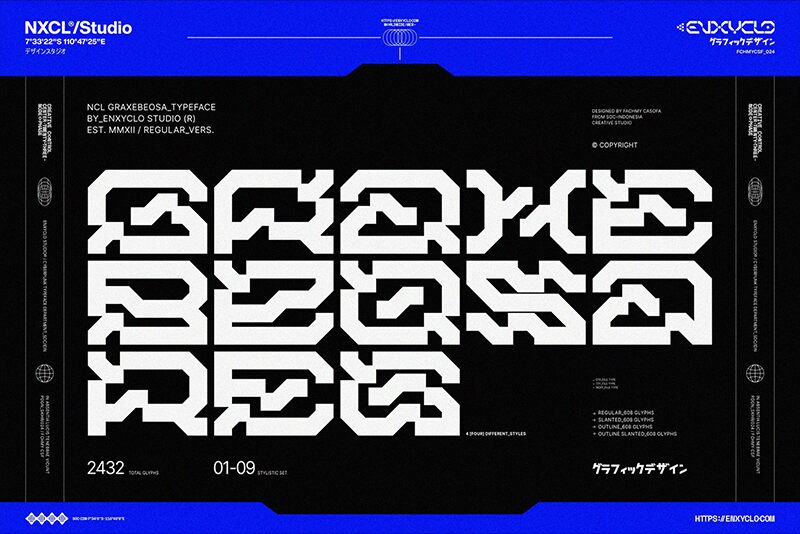
NCL Graxebeosa Demo
NCL Graxebeosa font by Enxyclo Studio is a futuristic display font that mesmerizes with angular shapes and geometric forms. It brings a modern, tech-oriented aesthetic through its expanded widths and digital-inspired design, drawing the viewer in with bold features.